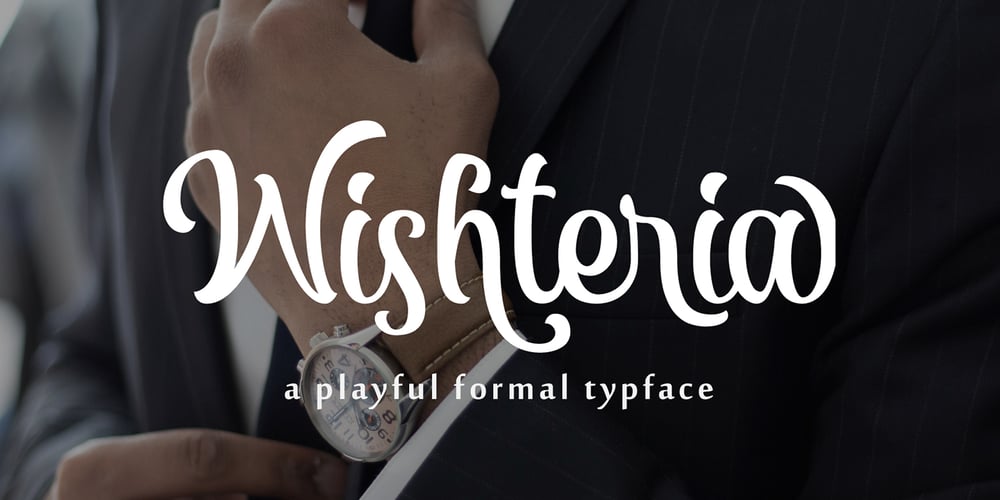
Wishteria
Wishteria font
Wishteria Font Family was designed by Ahmad Ramzi Fahruddin and published by Arterfak Project. Wishteria contains 1 styles and family package options. A playful, informal typeface, very suitable to make your design still neat and stylish. Carefully designed for body text or body copy on your office project. The letters made with solid strokes to keep it minimalist. Also, you can access the features to make an elegant playfully lettering with over than 390 glyphs inside. PUA Encoded. You need some application to access the OpenType features such as Adobe Illustrator CS, Adobe Indesign, CorelDraw X6 and etc. You can also simply access with ‘character map’ or ‘font book’ on Mac. Available in OTF format.